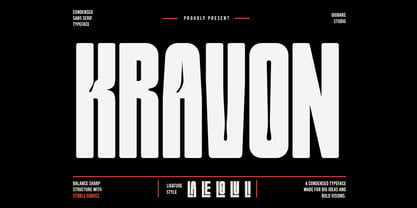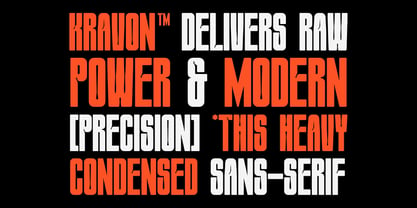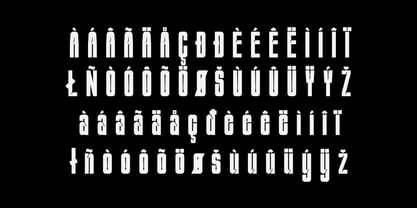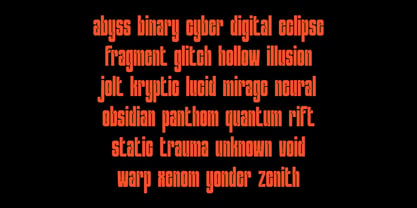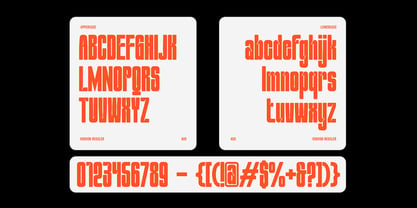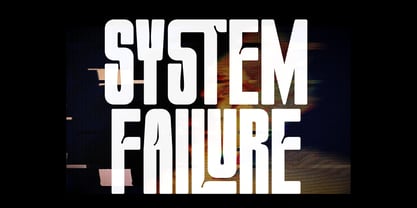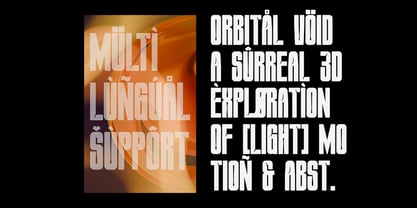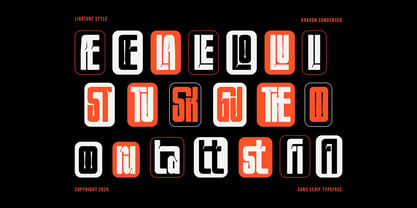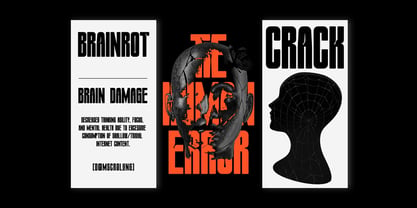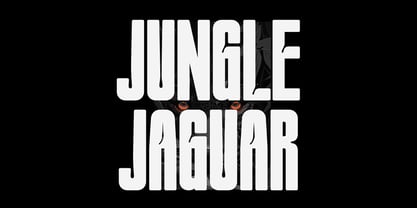
Kravon
by Qiubare Studio
The Kravon Font Family was designed by Michael Everson and published by Qiubare Studio. Kravon contains 1 styles. More about this family
Kravon Condensed is a bold condensed display sans serif typeface crafted for strong visual communication and modern corporate aesthetics. Designed with tall proportions, clean geometry, and distinctive character details, this font delivers a confident and professional presence while maintaining a stylish contemporary feel.
Its condensed structure allows headlines and branding layouts to appear powerful, compact, and highly impactful—making it an excellent choice for editorial design, advertising, posters, branding systems, packaging, magazine covers, and modern visual identities.
Kravon Condensed combines precision, balance, and boldness into a versatile display typeface suitable for both professional and creative projects.
✨ Features:
* Uppercase & lowercase
* Bold condensed display style
* Clean modern structure
* Unique ligatures
* Numbers & punctuation
* Multilingual support
* Strong headline appearance
* Professional modern aesthetic
Kravon Condensed is ideal for designers seeking a bold and modern typeface that feels authoritative, clean, and visually memorable across print and digital projects.
Designers: Michael Everson
Foundry: Qiubare Studio